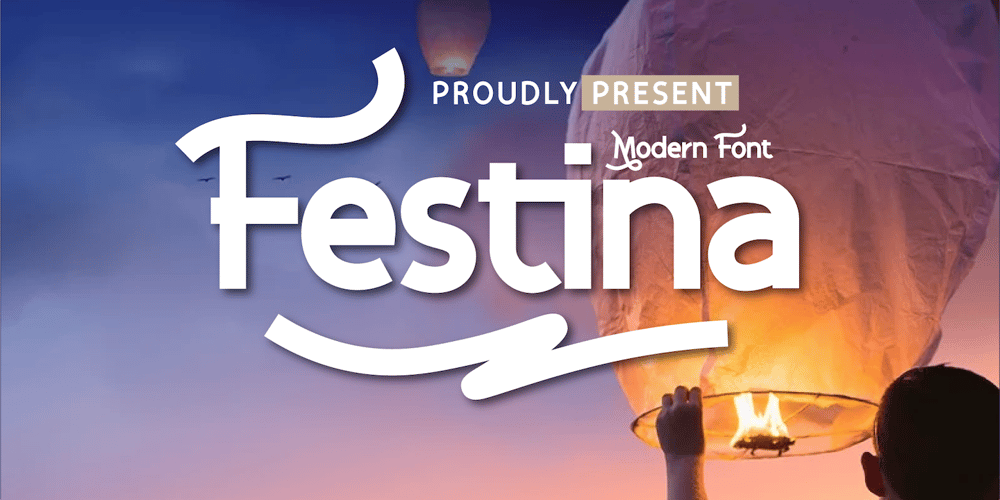
Festina Font Family was designed by Rozikan and published by Twinletter. Festina contains 2 styles and family package options. Festina is our newest font, which is handwritten which is neat and clean and proportionate in usage. gives a friendly, relaxed, and cool impression when reading.Not limited to that, the bold calligraphy font is designed to keep paying attention to the beauty of each letter, there are alternate options for the letters which are certainly easy for you to access, so you can automatically customize the letters you want to enhance the visual appearance of your design project.This charming font also offers the beauty of abstract typography harmony for a wide variety of design projects, including digital natural handwriting for designs, quote designs, for social media business designs, advertisements, trademarks, food and beverage promotion banners, text, posters, a signature, and all designs require handwriting or whatever design you want.What’s Included : File font Web Fonts Standard glyphs Ligature Works on PC & Mac Simple installations Accessible in Adobe Illustrator, Adobe Photoshop, Adobe InDesign, even work on Microsoft Word. PUA Encoded Characters – Fully accessible without additional design software. Fonts include multilingual support for; Afrikaans, Albanian, Croatian, Czech, Danish, Dutch, English, Estonian, Finnish, French, German, Hungarian, Italian, Norwegian, Polish, Portuguese, Slovak, Slovenian, Spanish, Swedish Thank you for your purchase!Hope you enjoy our font!